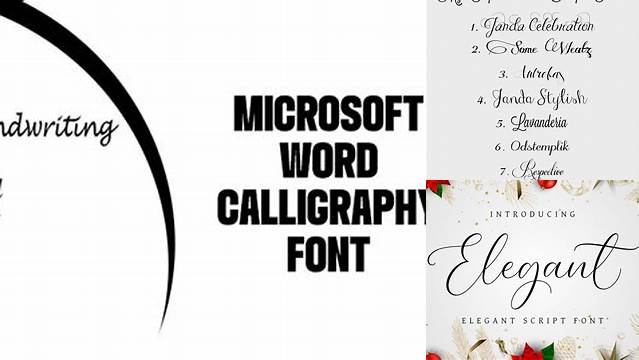
Elegant Calligraphy Fonts For Microsoft Word
Hey guys! Ever wanted to add a touch of elegance to your documents? Let's dive into the world of calligraphy fonts in Microsoft Word. Whether you’re crafting invitations, designing certificates, or just want to make your documents stand out, choosing the right calligraphy font can make all the difference. In this article, we'll explore various aspects of using calligraphy fonts in Microsoft Word, from finding and installing them to effectively using them in your projects. Let's get started and transform your ordinary text into stunning works of art!
Calligraphy Fonts: An Overview
Calligraphy fonts are designed to mimic the beautiful, flowing strokes of traditional calligraphy. Unlike standard fonts, calligraphy fonts often feature intricate details and elegant curves that add a touch of sophistication to any document. When you're working with Microsoft Word, having a selection of calligraphy fonts at your fingertips can be incredibly useful for various projects, from wedding invitations to professional presentations. These fonts aren't just about aesthetics; they also convey a sense of craftsmanship and attention to detail, making them perfect for when you want to make a strong impression. But remember, the key is to use them judiciously. Overusing calligraphy fonts can make your document look cluttered and difficult to read. The goal is to enhance your message, not overshadow it.
Free vs. Premium Calligraphy Fonts
When it comes to calligraphy fonts, you'll find both free and premium options available. Free calligraphy fonts are great if you're on a budget or just starting out, but keep in mind that their quality and variety can vary. Premium calligraphy fonts, on the other hand, often offer more polished designs, more extensive character sets, and better support. They might also come with additional features like ligatures and stylistic alternates, which can enhance the overall look of your text. If you're working on a professional project or want to ensure a high-quality result, investing in a premium calligraphy font might be worth it. However, don't underestimate the free options! There are many excellent free calligraphy fonts out there; you just need to do a bit of digging to find them. Websites like Google Fonts, DaFont, and Font Squirrel offer a wide range of free calligraphy fonts that you can use in your projects.
Best Calligraphy Fonts for Invitations
Creating invitations? Then you know the font is key! For wedding invitations, something like "Edwardian Script ITC" or "Great Vibes" can add that touch of romance and elegance. If you're going for a more modern vibe, "Alex Brush" or "Scriptina" could be great choices. Remember, the best calligraphy font for invitations depends on the overall theme and style of your event. For a formal event, you might want a more traditional and refined font, while a casual event could call for something more playful and whimsical. Always consider readability; even the most beautiful calligraphy font is useless if your guests can't read the invitation! Play around with different fonts and see what looks best with your design. Don't be afraid to mix and match fonts, but make sure they complement each other.
Calligraphy Fonts for Certificates
Certificates need to look official, right? Fonts like "Diplomata" or "Certificate" are classic choices. They have that traditional, authoritative feel that works perfectly for recognizing achievements. "Blackadder ITC" can also add a touch of old-world charm. When choosing a calligraphy font for certificates, make sure it's legible and conveys a sense of importance. Avoid fonts that are too decorative or difficult to read, as they can detract from the certificate's message. The font should complement the overall design of the certificate, not overshadow it. Consider using a simpler, sans-serif font for the body text of the certificate to ensure readability, and reserve the calligraphy font for headings or names. This creates a nice balance and keeps the certificate looking professional.
Using Calligraphy Fonts in Resumes
Okay, so calligraphy fonts in resumes? Tread carefully! While a subtle touch of calligraphy font can make your name stand out, overdoing it can make your resume look unprofessional. If you're going to use a calligraphy font, stick to using it for your name or section headings only. Choose a calligraphy font that is clean and easy to read, like "Allura" or "Raleway Script". Avoid fonts that are too ornate or difficult to decipher, as recruiters need to be able to quickly scan your resume. The goal is to make a positive impression, not to distract from your qualifications. In most cases, it's best to stick to traditional, professional fonts like Arial, Times New Roman, or Calibri for the main body of your resume. These fonts are easy to read and convey a sense of professionalism. Use calligraphy fonts sparingly and with caution.
Pairing Calligraphy Fonts with Other Fonts
Pairing calligraphy fonts with other fonts is an art! The key is to create contrast while maintaining harmony. A good rule of thumb is to pair a calligraphy font with a simple, sans-serif font like Arial or Helvetica. The calligraphy font can be used for headings or titles, while the sans-serif font is used for the body text. This creates a clear visual hierarchy and makes the document easy to read. Avoid pairing two highly decorative fonts together, as this can make the document look cluttered and overwhelming. When choosing fonts to pair with calligraphy fonts, consider the overall style and tone of your document. If you're creating a formal invitation, you might want to pair a classic calligraphy font with a traditional serif font like Times New Roman. For a more modern design, you could pair a script font with a clean, sans-serif font like Open Sans. Experiment with different font combinations until you find something that looks balanced and visually appealing.
Adjusting Font Size and Spacing for Calligraphy Fonts
Calligraphy fonts often require a bit of tweaking when it comes to font size and spacing. Because of their intricate designs, they can sometimes appear smaller than other fonts of the same point size. You might need to increase the font size slightly to make them more legible. Additionally, calligraphy fonts often benefit from increased letter spacing. This can help to prevent the letters from running together and make the text easier to read. In Microsoft Word, you can adjust the letter spacing by going to the "Font" dialog box, clicking on the "Advanced" tab, and adjusting the "Spacing" setting. Experiment with different spacing values until you find something that looks good. Be careful not to increase the spacing too much, as this can make the text look disjointed. The goal is to find a balance that enhances the readability and visual appeal of the calligraphy font.
Kerning and Ligatures in Calligraphy Fonts
Kerning and ligatures are important aspects of calligraphy fonts that can significantly impact their appearance. Kerning refers to the spacing between individual letters, while ligatures are special characters that combine two or more letters into a single glyph. Many high-quality calligraphy fonts include kerning and ligatures to improve the overall aesthetics of the text. In Microsoft Word, you can enable kerning by going to the "Font" dialog box, clicking on the "Advanced" tab, and checking the "Kerning for fonts" box. Ligatures are usually enabled by default, but you can check the font's documentation to see if there are any specific instructions for enabling them. Using kerning and ligatures can make your calligraphy fonts look more polished and professional. They help to create a more natural and flowing appearance, which is especially important for script fonts.
So there you have it! Everything you need to know about using calligraphy fonts in Microsoft Word. Have fun experimenting and creating beautiful designs!